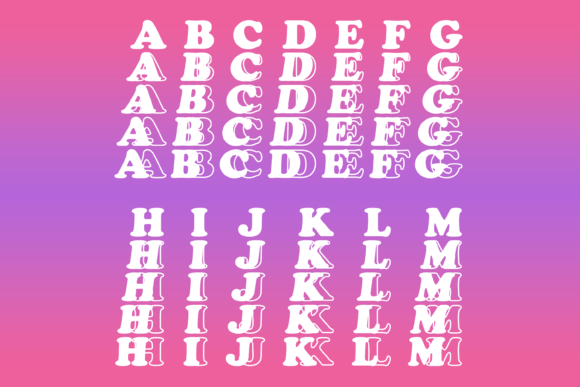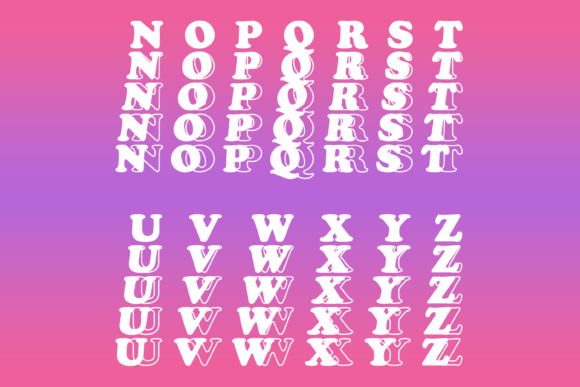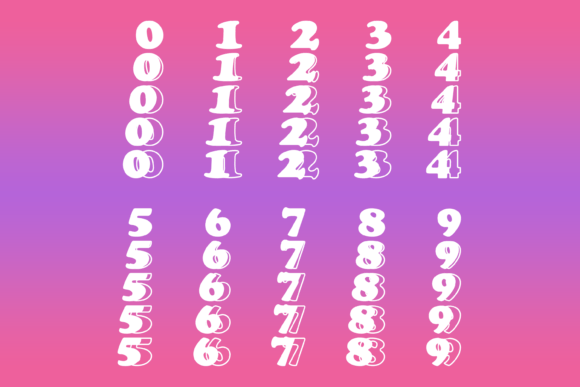
The Error Font: A Designer’s Dream Come True
My Honest Review of Error
- ✨ Unique and quirky design that adds a touch of personality to any project
- ✅ Highly versatile and works well for both digital and print designs
- 💫 Supports OpenType features, glyphs, and stylistic alternates for added creativity
- 🌈 Available in various weights and styles to suit different design needs
While Error is an amazing font, there are a few things to keep in mind: 🤔
- ⚠️ Some characters may not work well in very small sizes, so it’s best to use it at larger sizes (14pt or higher)
- ⚠️ Limited availability of certain special characters, so make sure to check the font’s capabilities before using it for a specific project
The Story Behind Error
Error was designed by a team of creatives who wanted to create a font that was both unique and functional. Inspired by the imperfections of handwritten text, Error features a quirky and charming design that’s perfect for adding a personal touch to any project.
Q: What type of projects is Error best suited for?
A: Error is a versatile font that works well for a wide range of projects, including custom designs, DIY crafts, presentations, and more.
Q: Is Error available in different weights and styles?
A: Yes, Error comes in various weights and styles to suit different design needs.